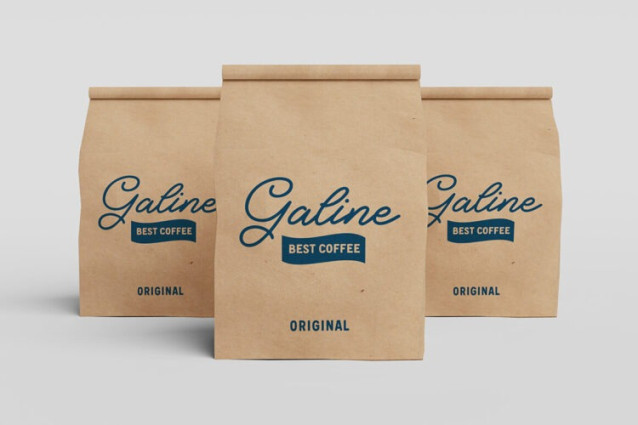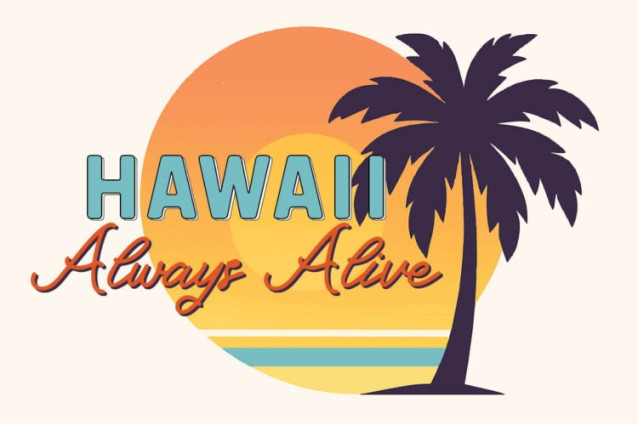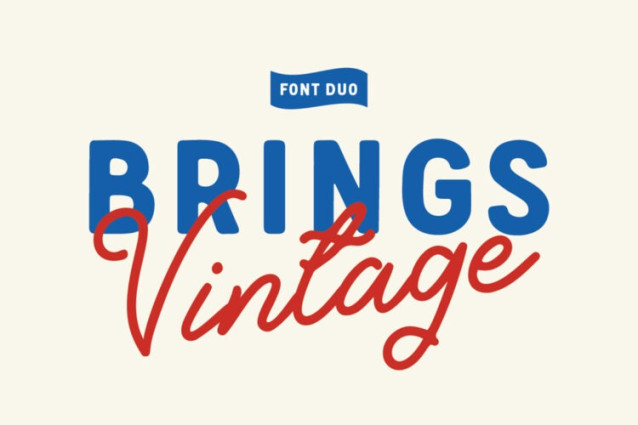
Brings Vintage Font Duo
Brings Vintage Font Duo a playful and stylish font duo that combines bold retro sans with smooth handwritten script. Designed to bring a nostalgic yet modern touch, this typeface is perfect for logos, branding, packaging, social media, and all your vintage-inspired projects.